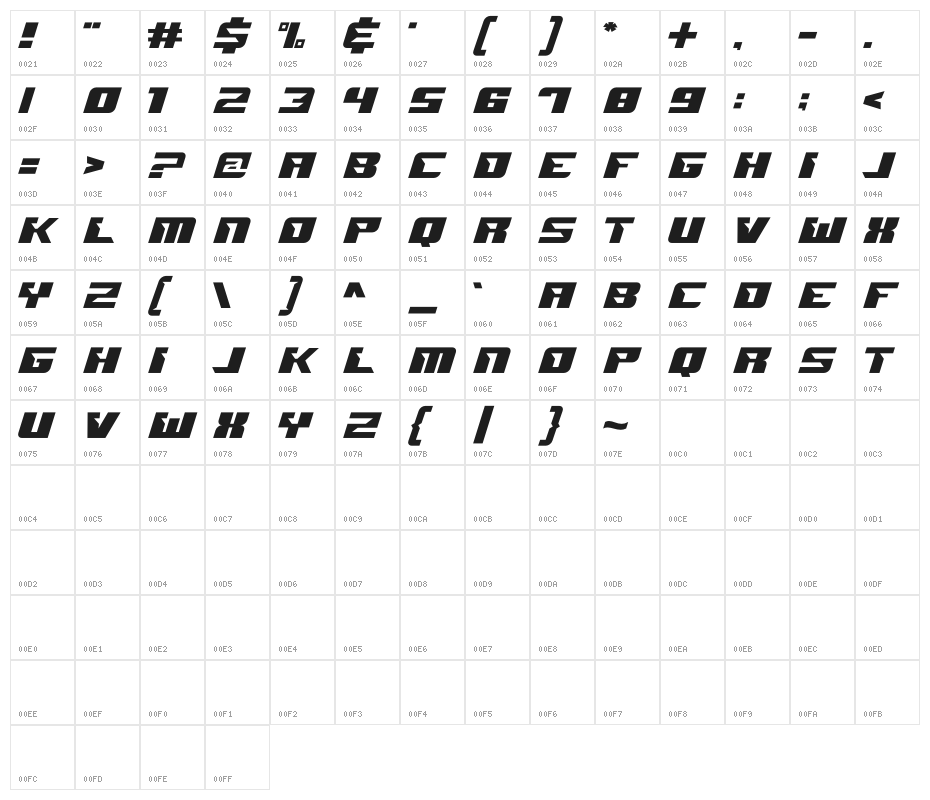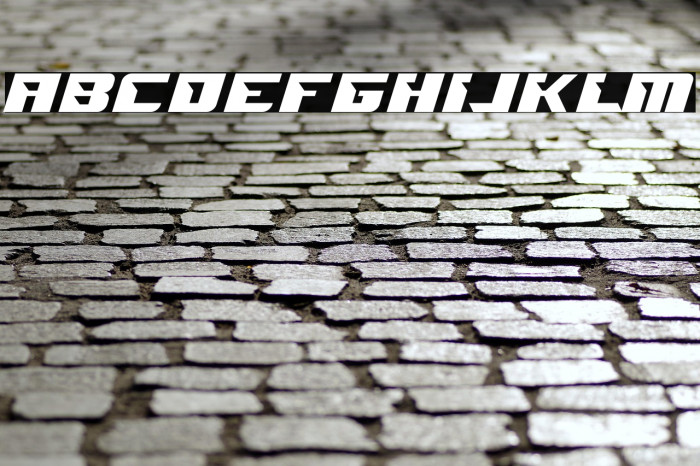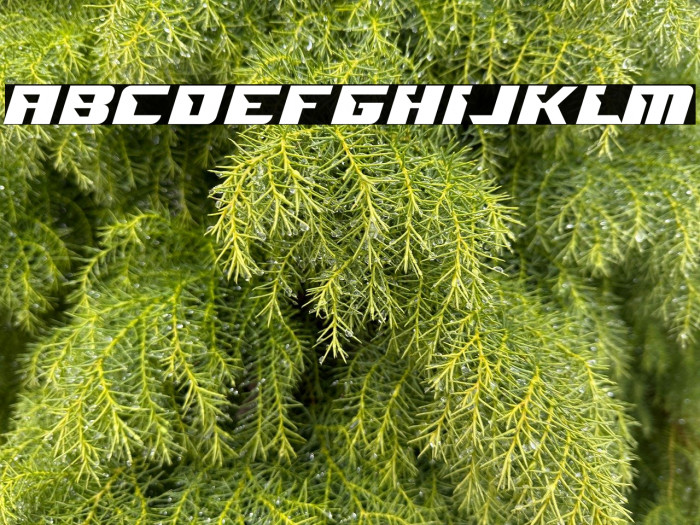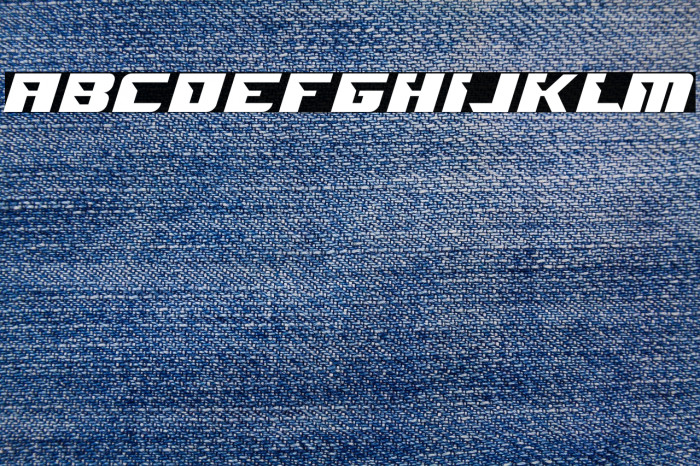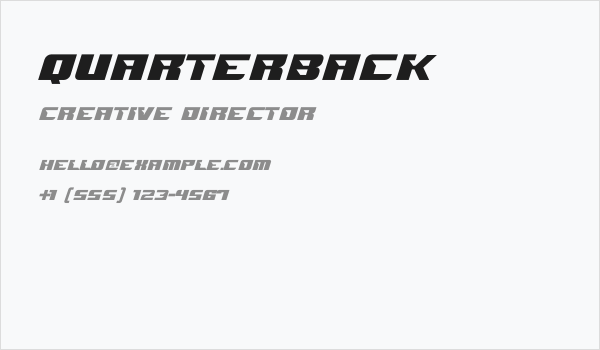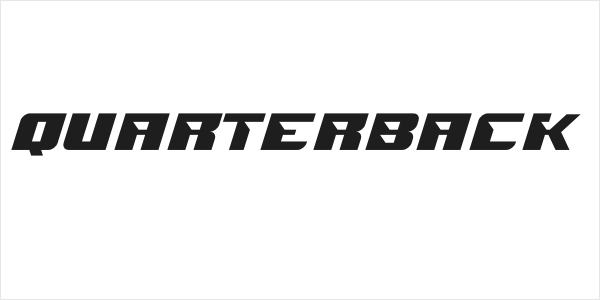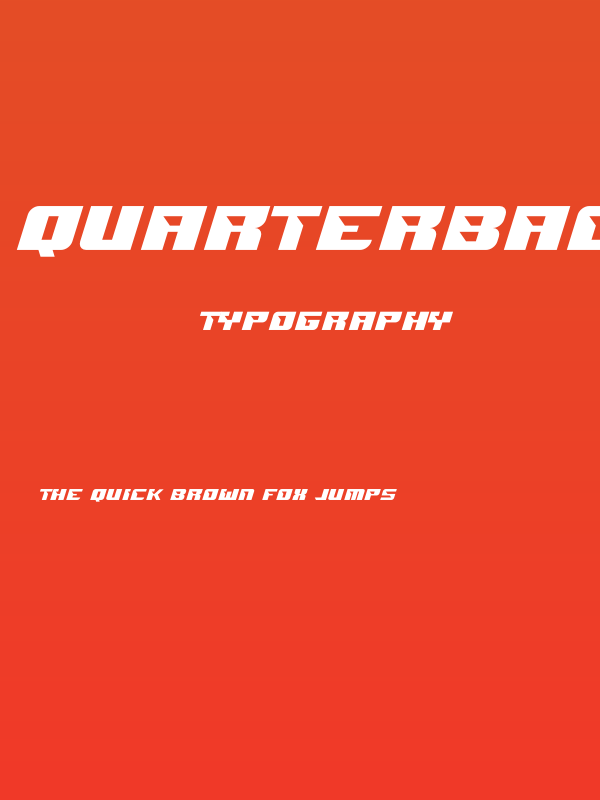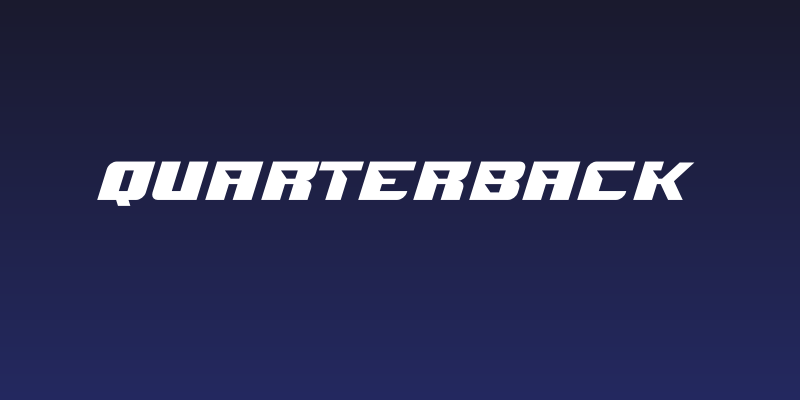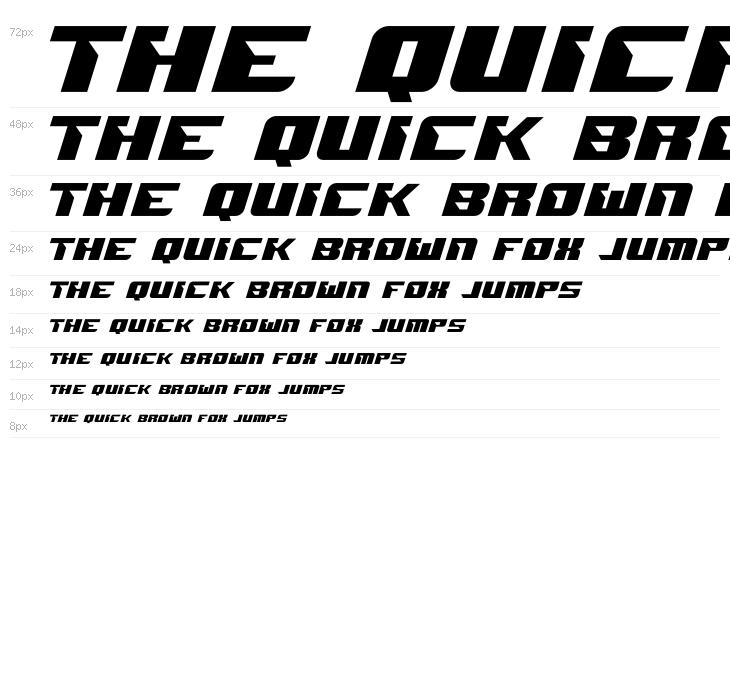
QUARTERBACK Font
QUARTERBACK Description
A bold, angular font with a futuristic and sporty appearance, featuring sharp edges and a dynamic slant.
| Overall Style | Futuristic, Sporty |
| Proposed Projects | Sports branding, video game titles, dynamic posters. |